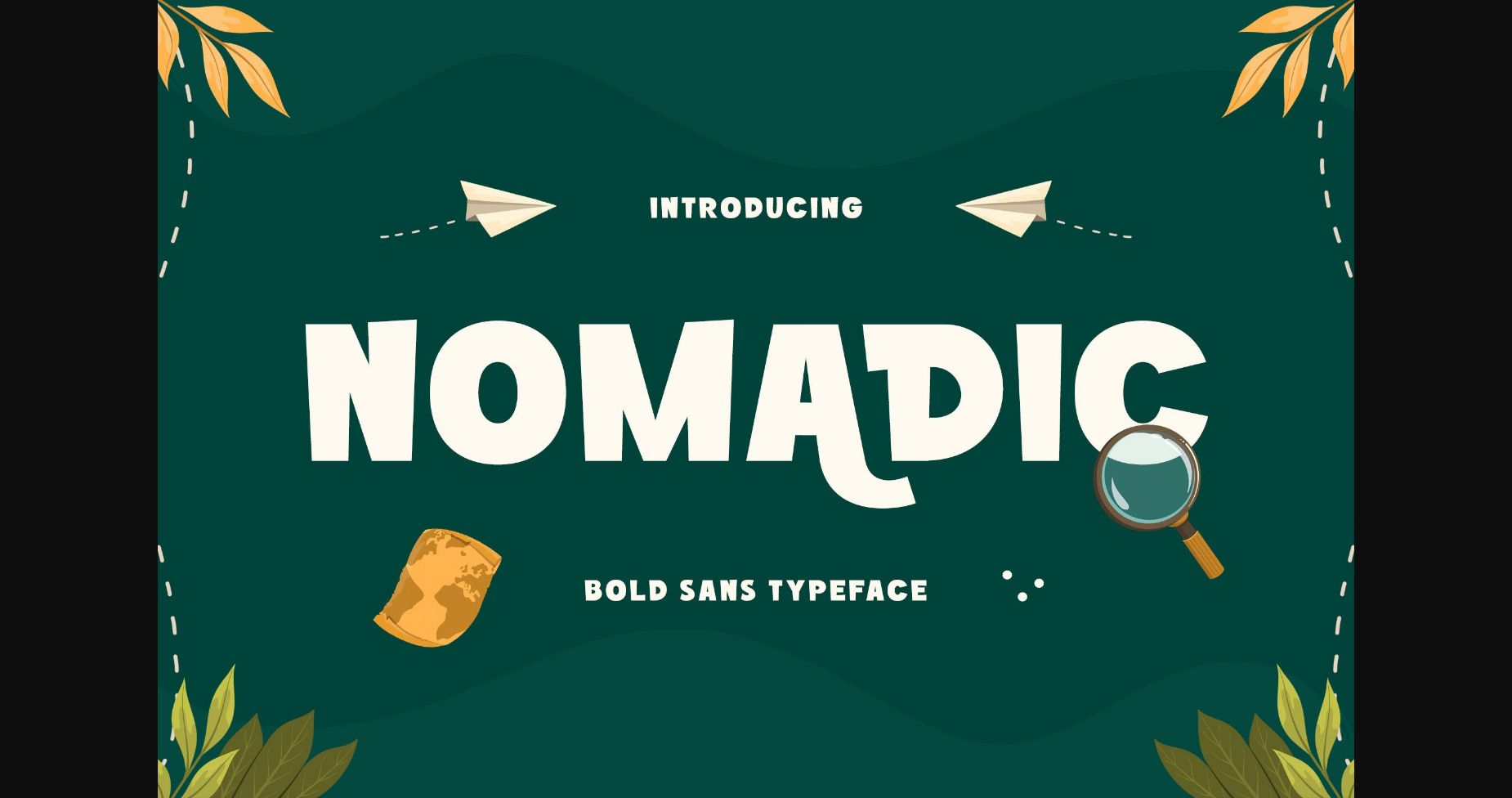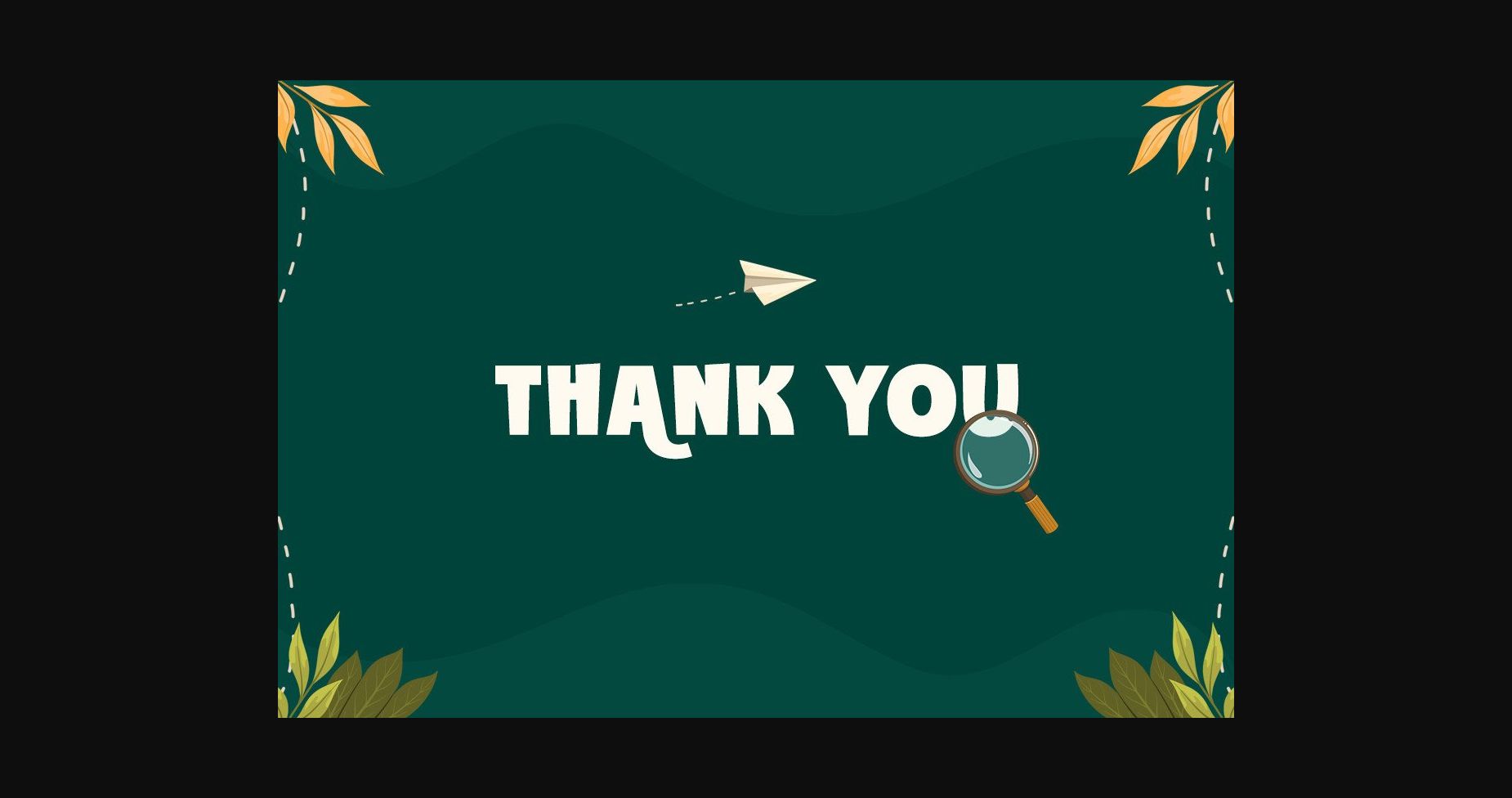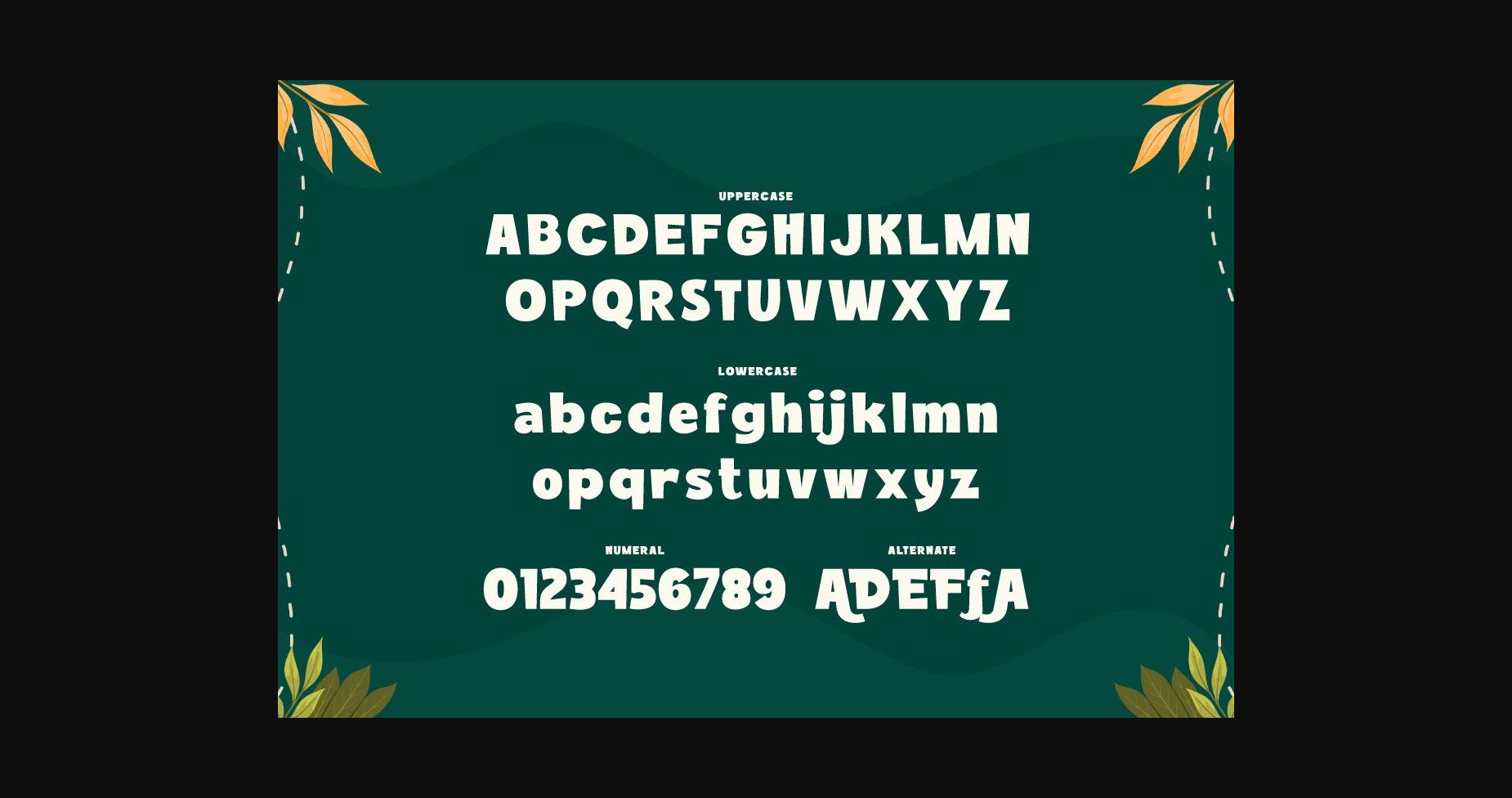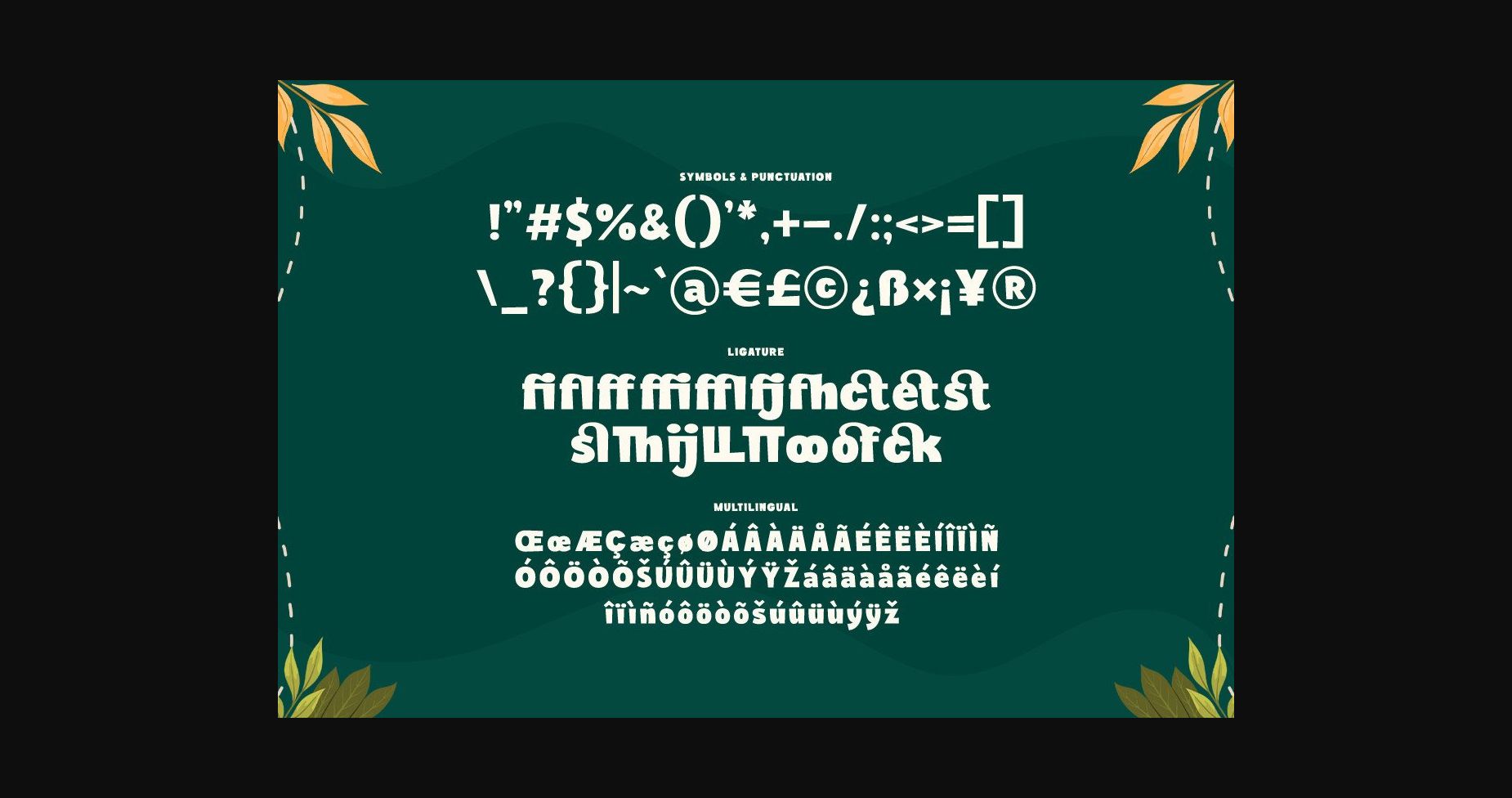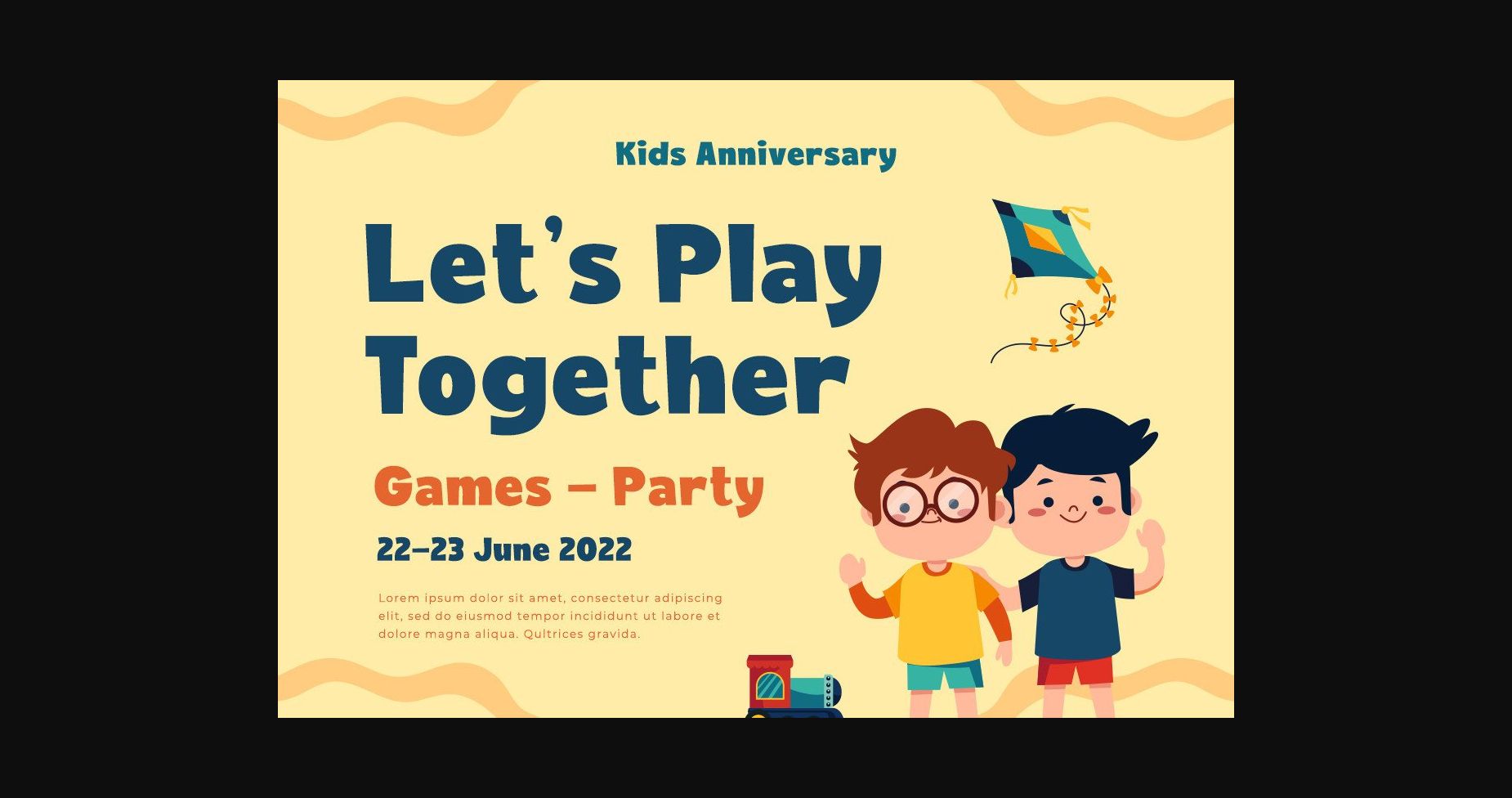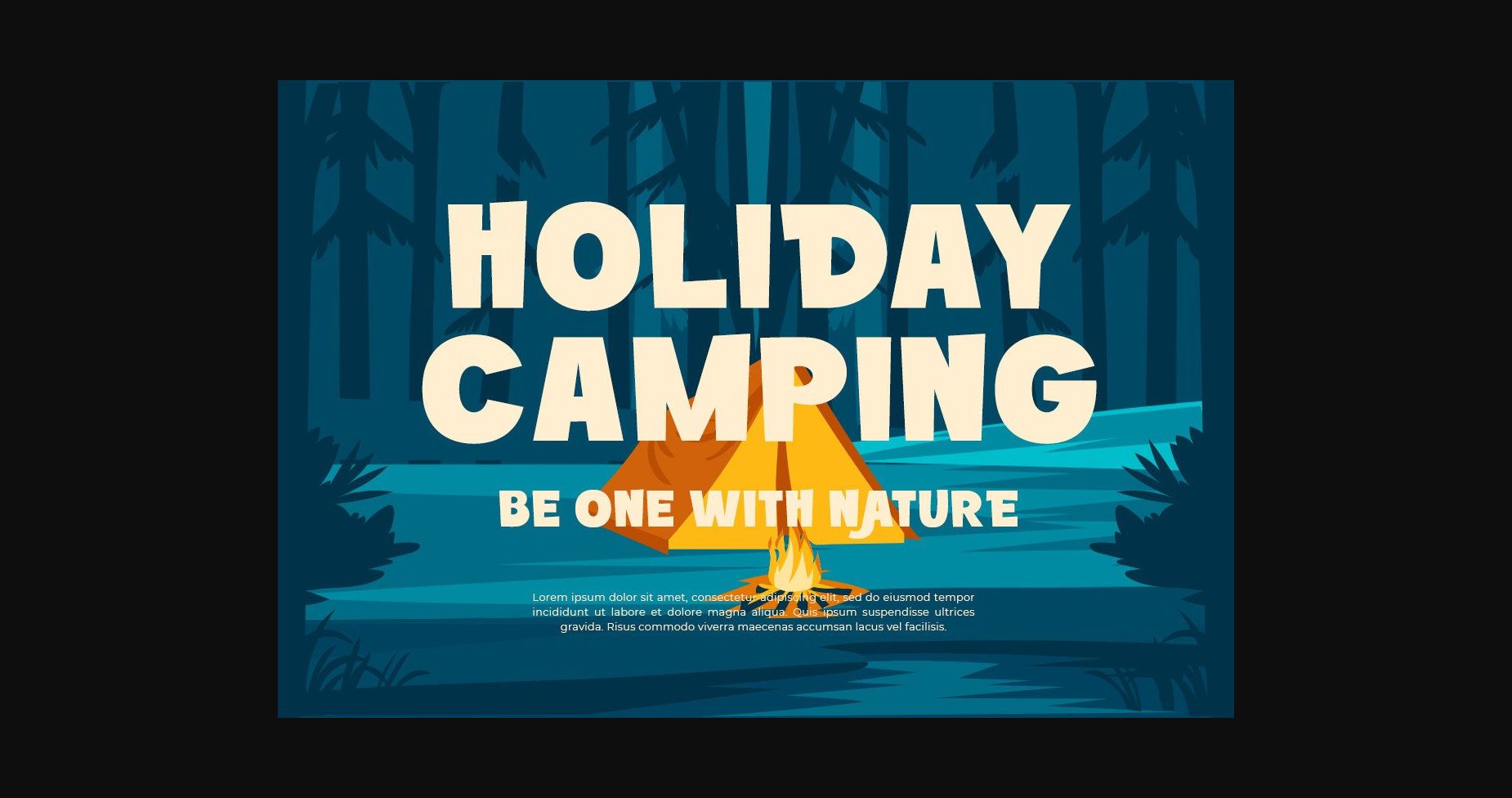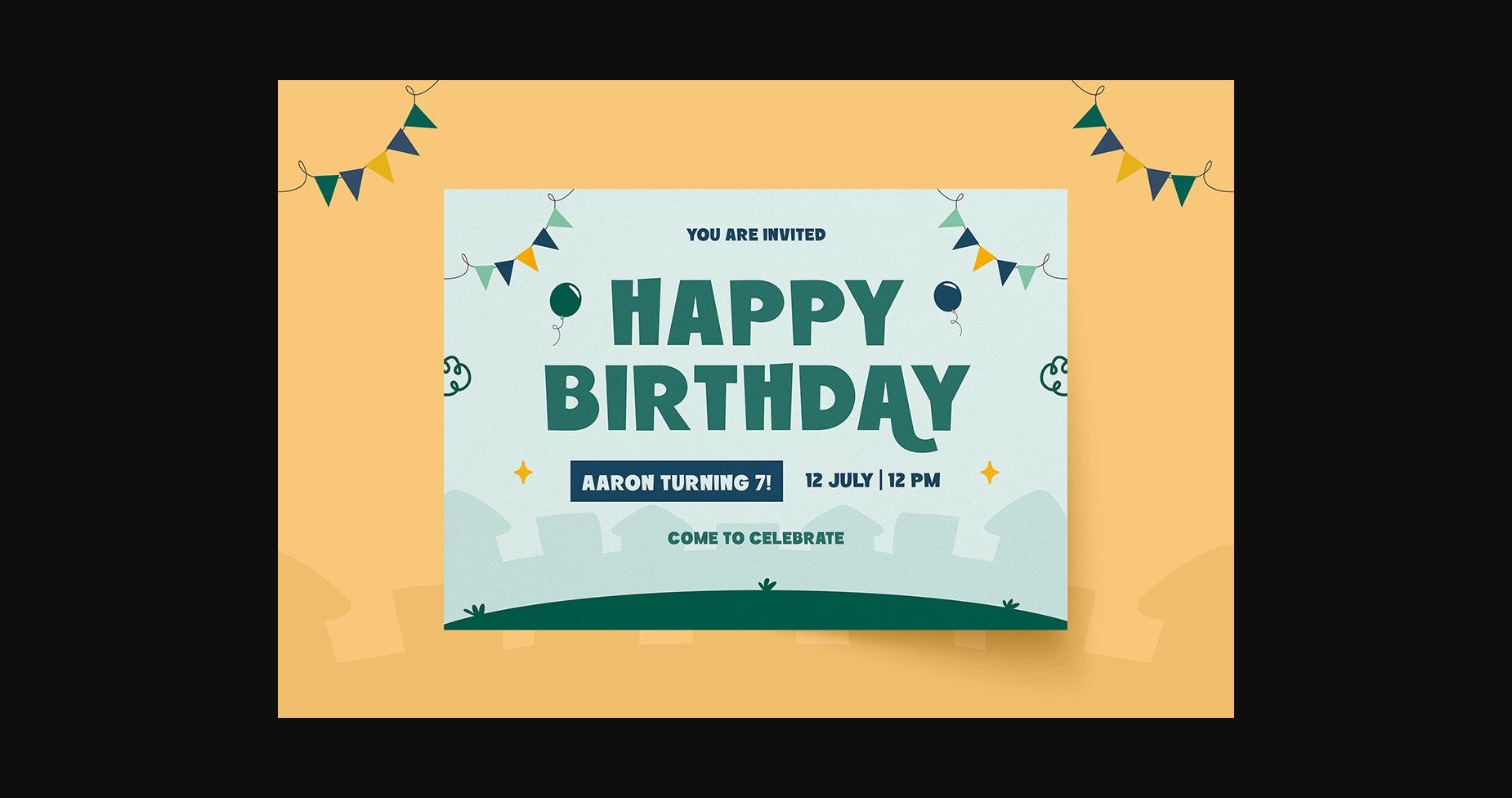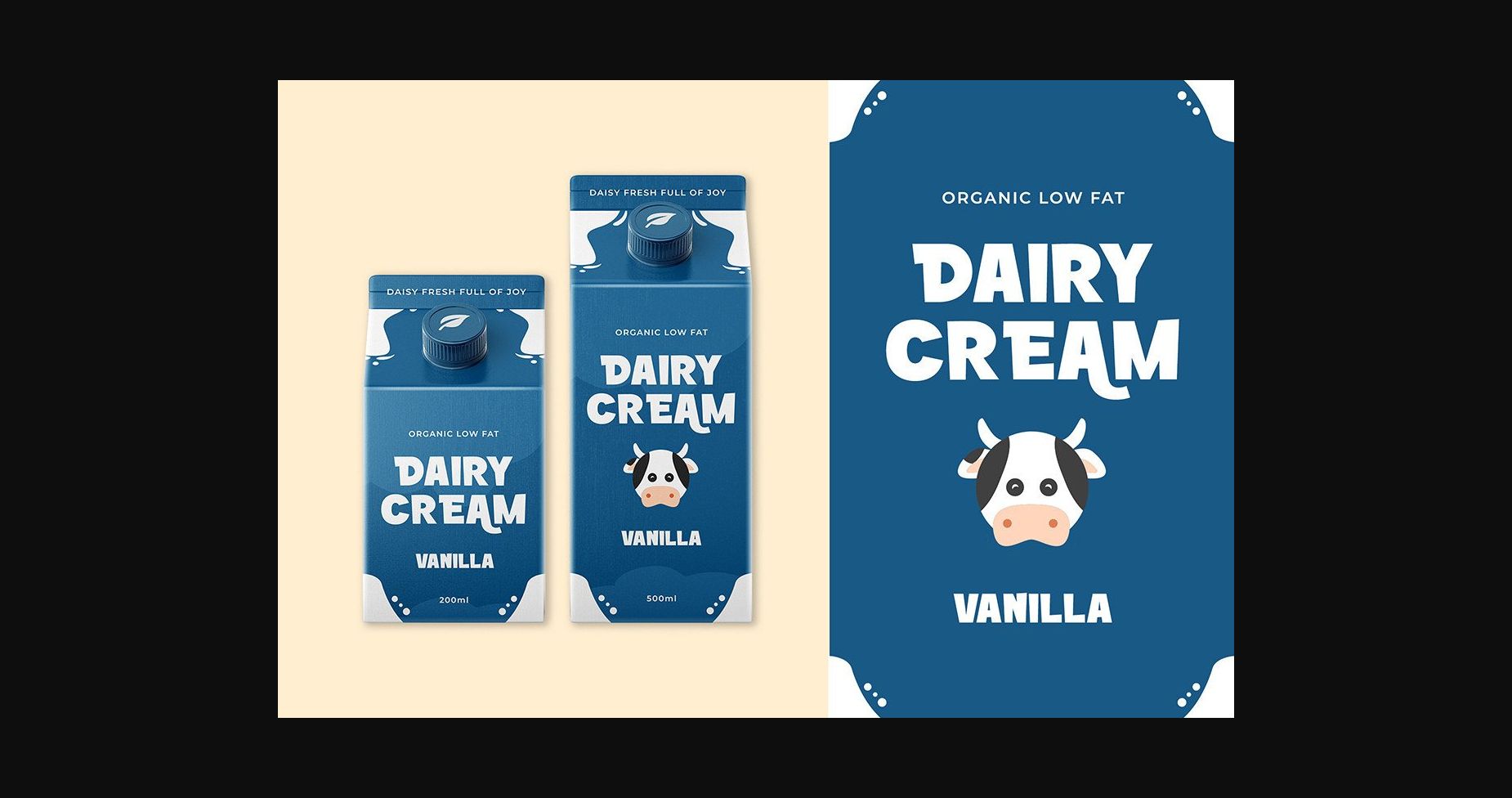
Nomadic Font
About Nomadic Font
Nomadic is a bold sans font.
It has fun and playful vibes.
This font is great for logo designs, quotes, album covers, business cards, and much more!